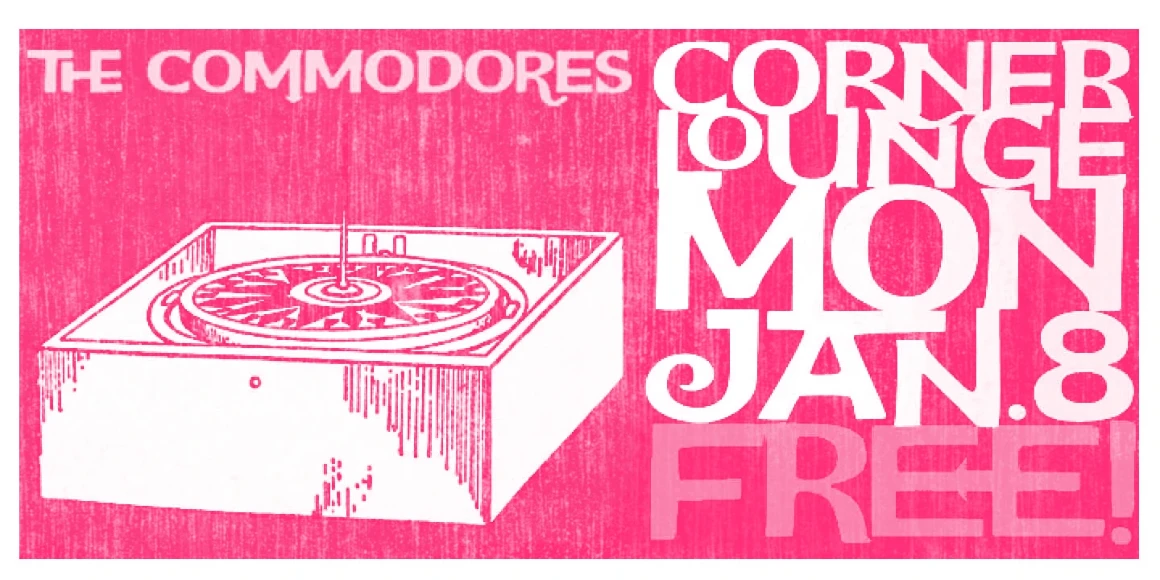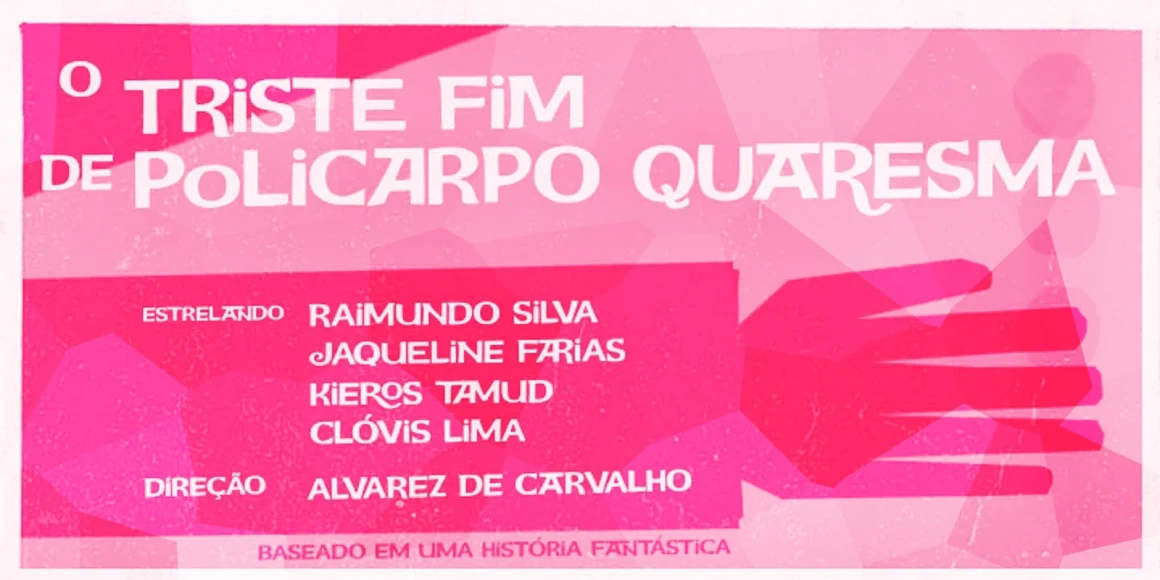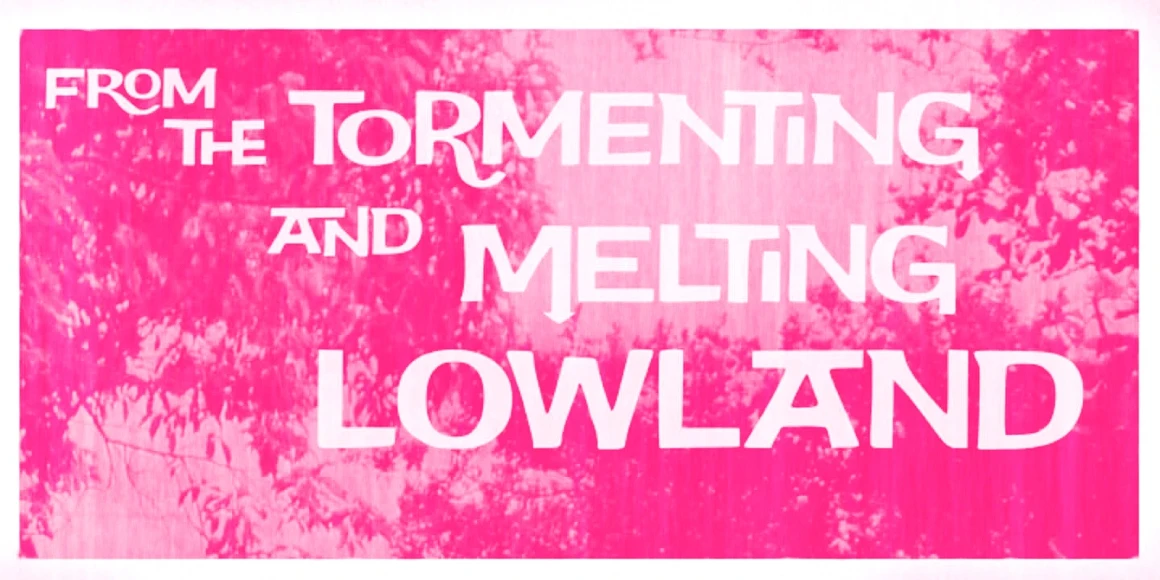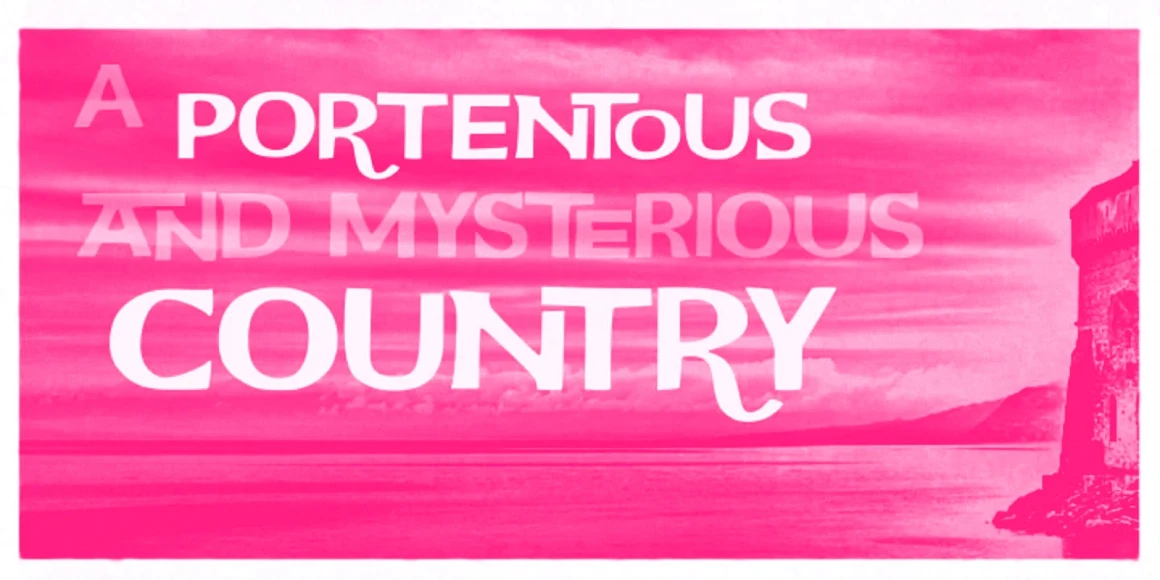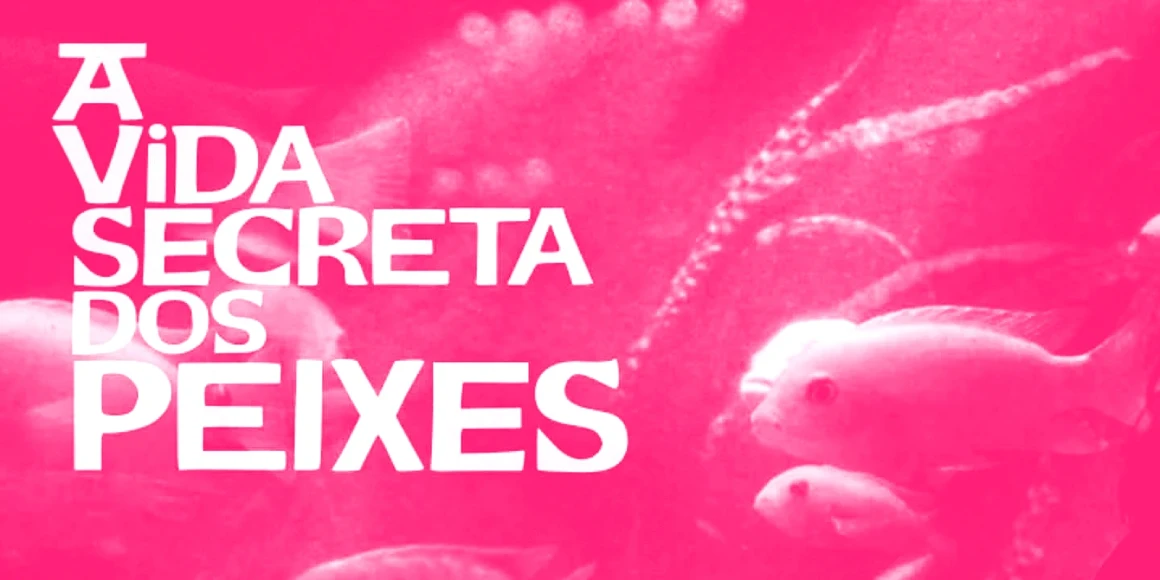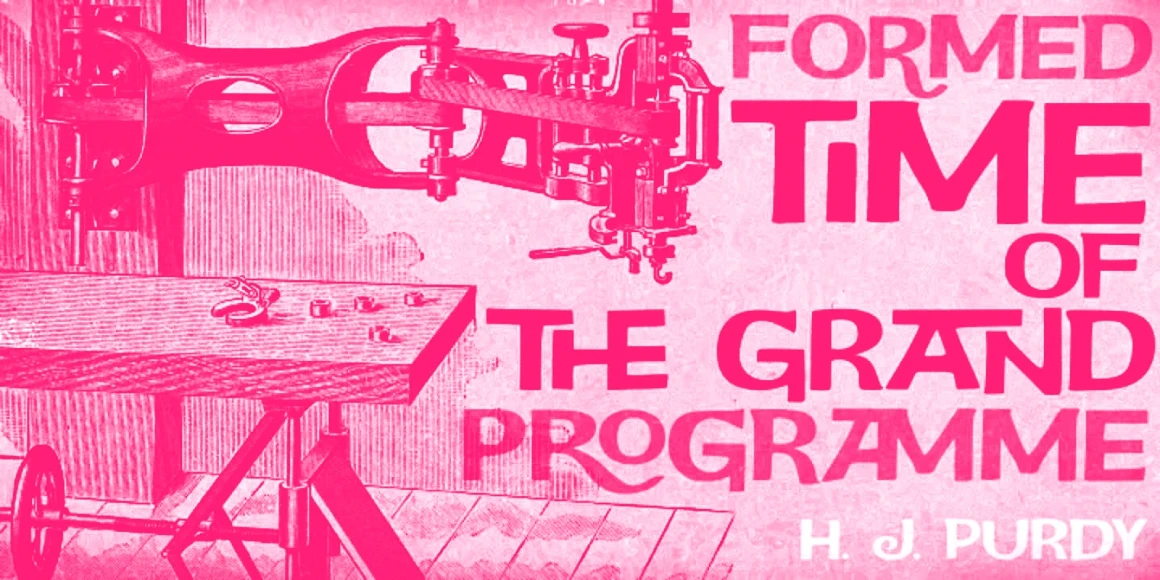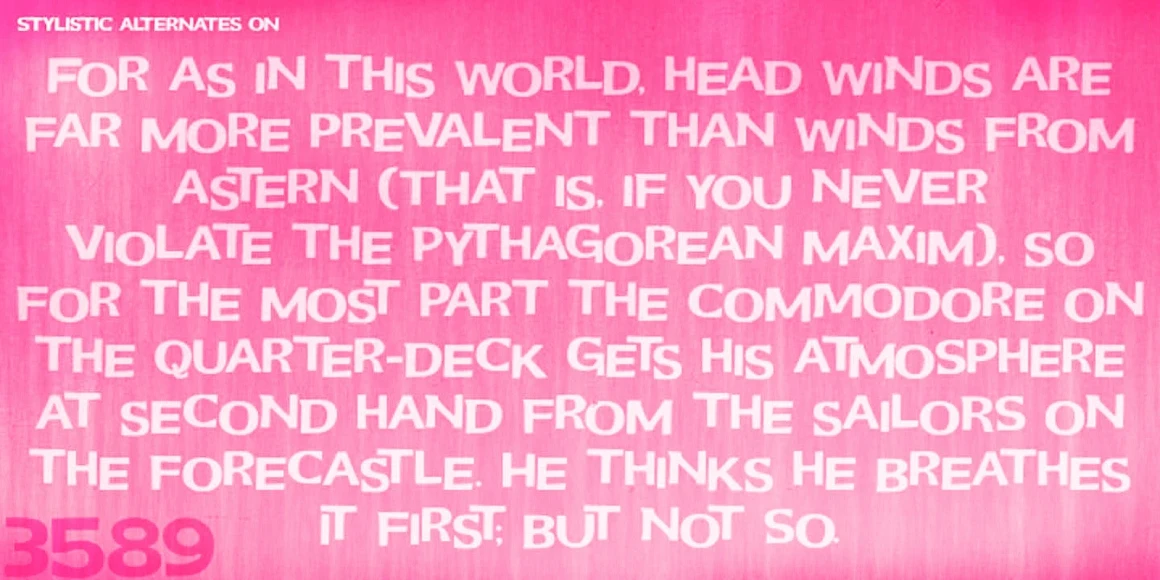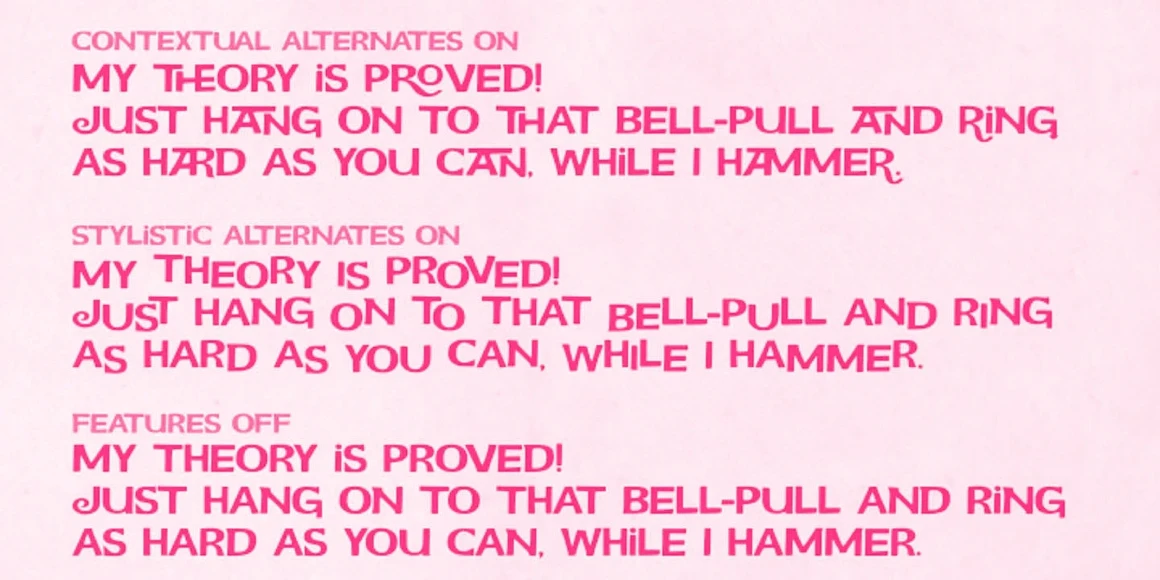
Jongleur
Jongleur Medium
Jongleur is a multifaceted hand-drawn display typeface based on lettering by Maury Nemoy from 1957. The vintage-feeling font also features an additional set of alternate letterforms that you can select by hand to enhance your compositions. But if you’re in a messy mood, use the stylistic alternates! It’s an excellent choice for headlines, film titles, merchandising, posters, and book covers.